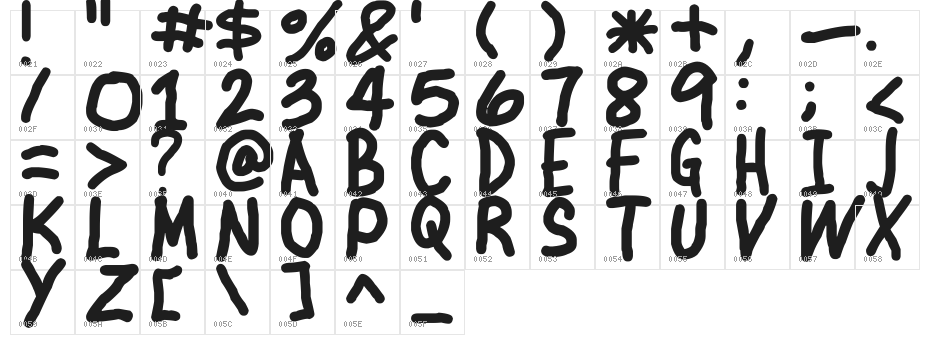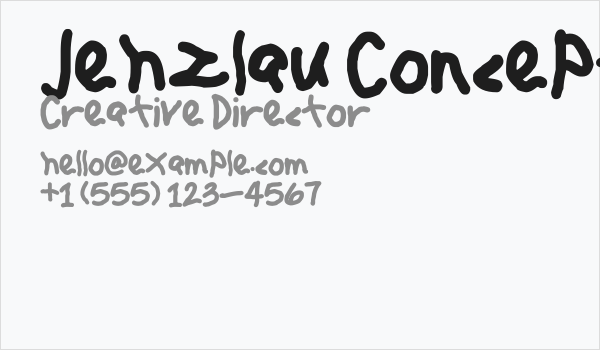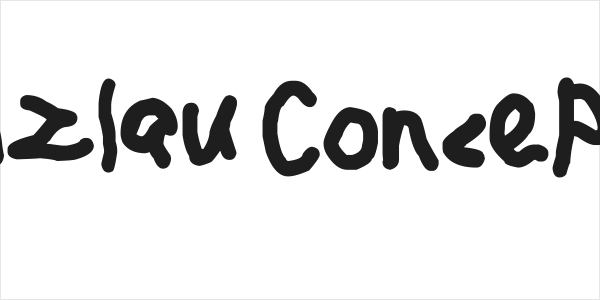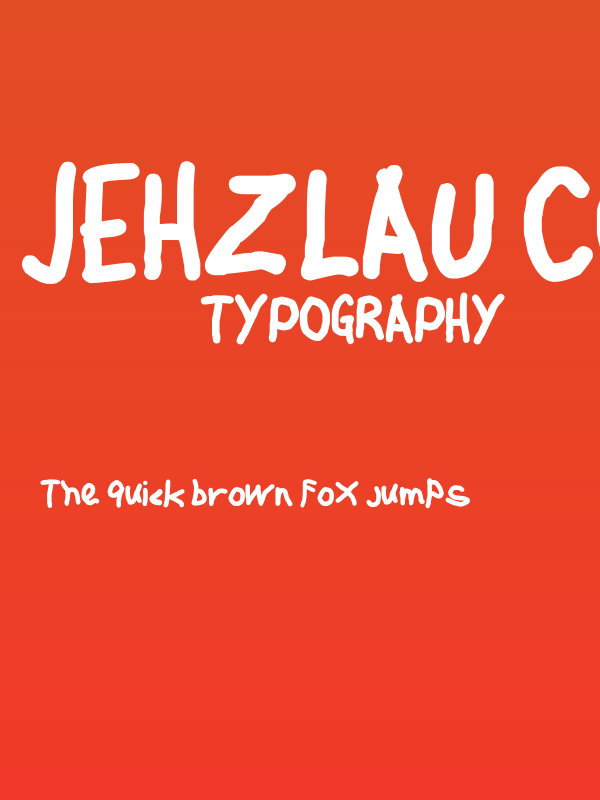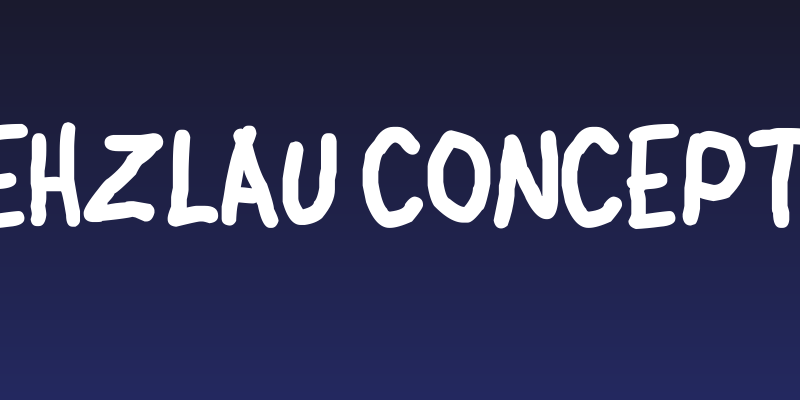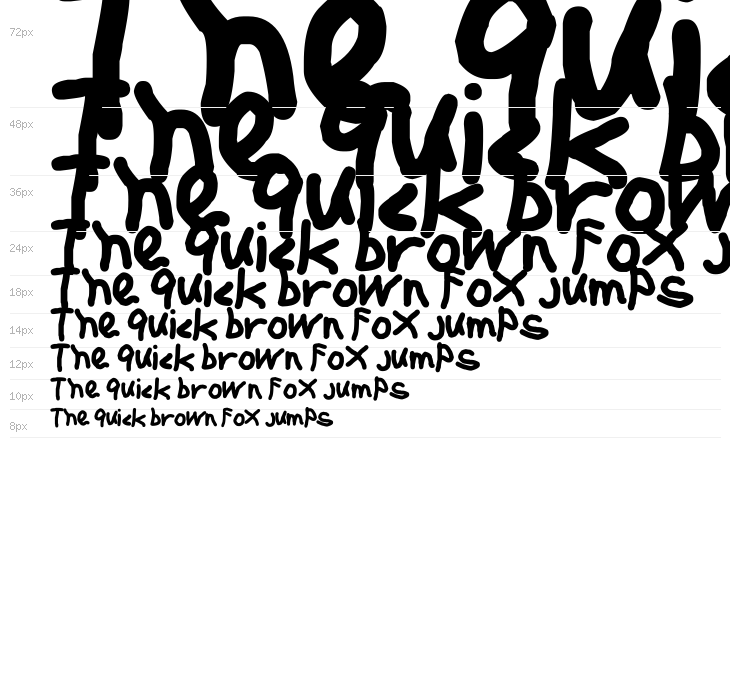
Jehzlau Concepts Font
Jehzlau Concepts Description
This font features a playful and informal handwritten style, characterized by its bold and slightly irregular strokes. The letters have a casual, almost childlike appearance, with rounded edges and a consistent thickness throughout. The uppercase and lowercase letters maintain a cohesive look, while the numbers and special characters complement the overall style. This font exudes a sense of fun and creativity, making it ideal for projects that require a personal touch. Its unique charm lies in its imperfect, organic form, which adds a human element to any design.
| Proposed Projects | Ideal for children's books, creative posters, casual branding, and playful invitations. |